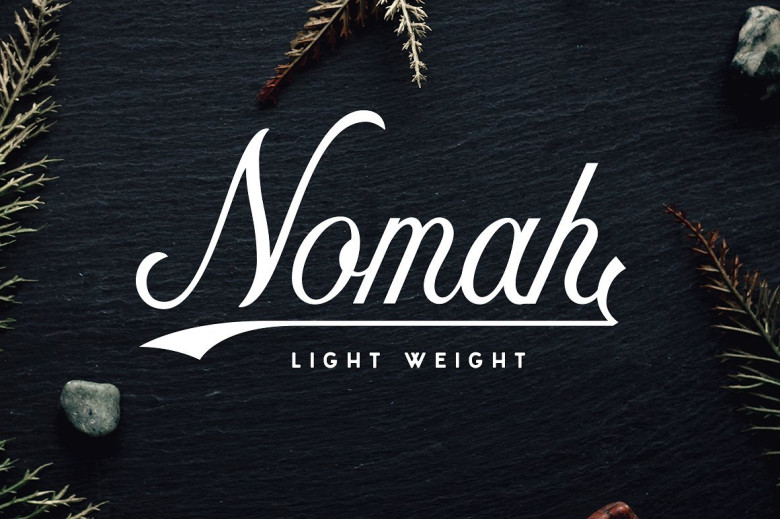
Nomah Light Script Font
Nomah Light Script Font designed by Nicolas Fredrickson, this is a premium font, are sold on creativemarket, but it was great, it is free today for download. Nomah, a friendly new script typeface with a lot of personality! Use Nomah to add energy to your logo, package design, shirts, invitations, and so much more. Nomah light is just part of a full typeface also available in my shop! You can see images using a variety of weights above. Nomah includes European characters. You will also find that surrounding letters of an apostrophe will connect, a feature most script typefaces don’t include.